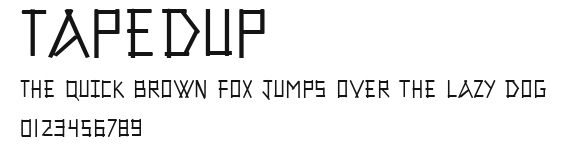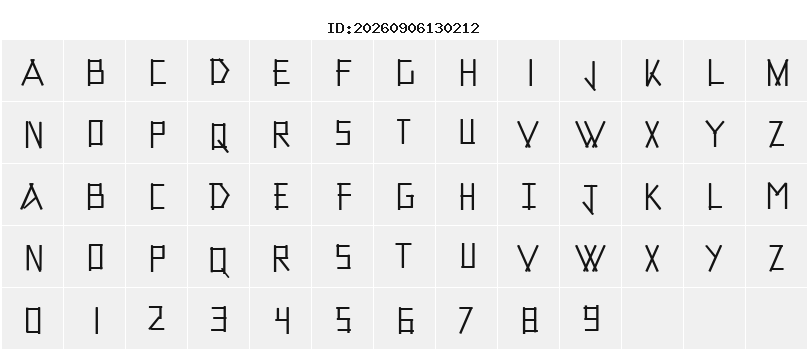
• Font Name: TapedUp
• Full Font Name: TapedUp
About TapedUp.ttf
TapedUp.ttf is a modern, elegant sans-serif font designed for ultimate readability and visual harmony. Perfect for branding, headlines, web design, and print materials.